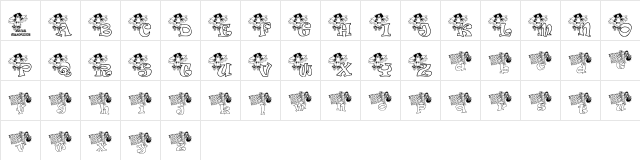
KG ANGEL1 Regular
Design Context for KG ANGEL1 Typeface
KG ANGEL1 is a composed and adaptable typeface that performs quietly and consistently across a wide range of design contexts.